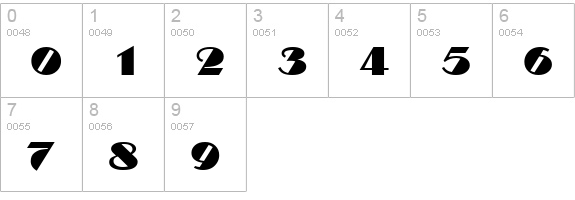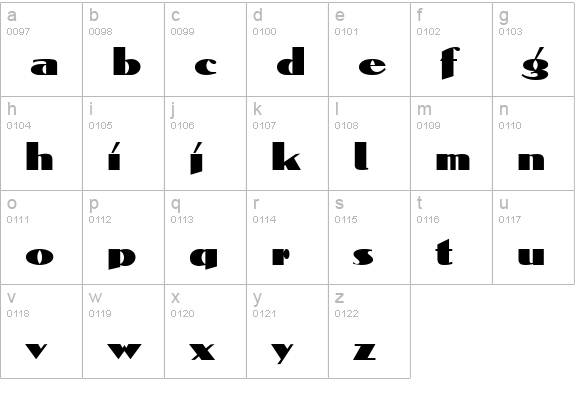
Agenda Font Details
Agenda font is a modern and stylish typeface that is perfect for a wide range of design projects. Its clean lines and sharp edges give it a contemporary look that will make your text stand out. Whether you're creating a logo, website, or print material, Agenda font is sure to make a bold statement. The best part about Agenda font is that it is completely free to download. Yes, you read that right - you can get your hands on this fantastic font at no cost at all. Simply head over to FontsMarket.com and start using Agenda font in your projects today. Don't miss out on this amazing opportunity to enhance your designs with the sleek and elegant Agenda font. Download it now and take your typography game to the next level.